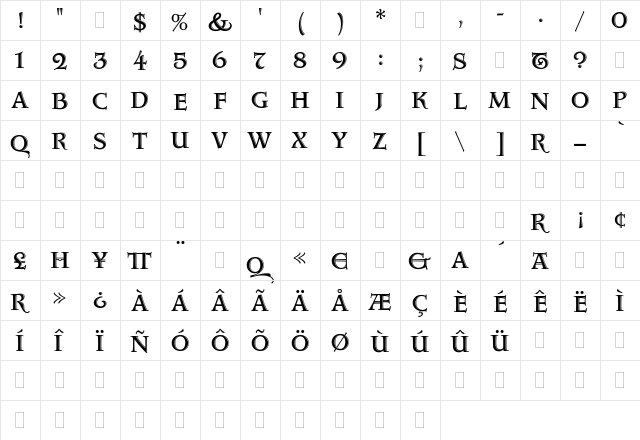
AquitaineInitialsPlain Regular
Design Context for AquitaineInitialsPlain Typeface
AquitaineInitialsPlain is a composed and adaptable typeface that performs quietly and consistently across a wide range of design contexts.